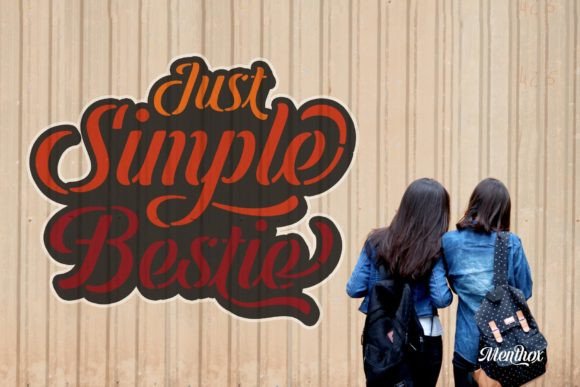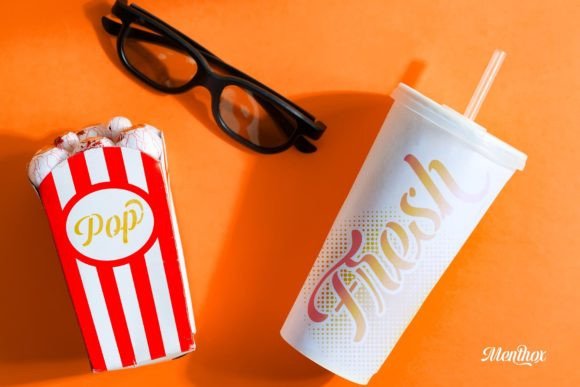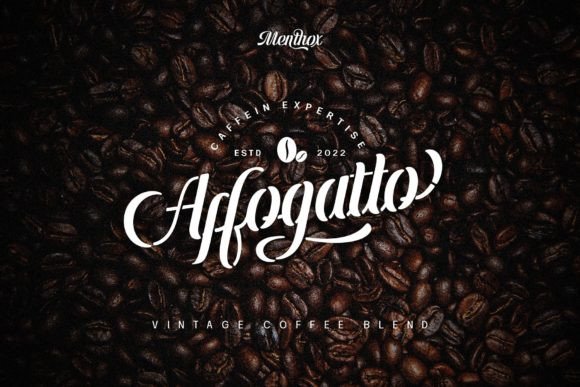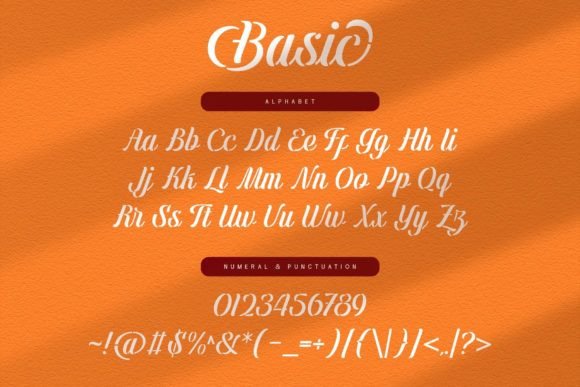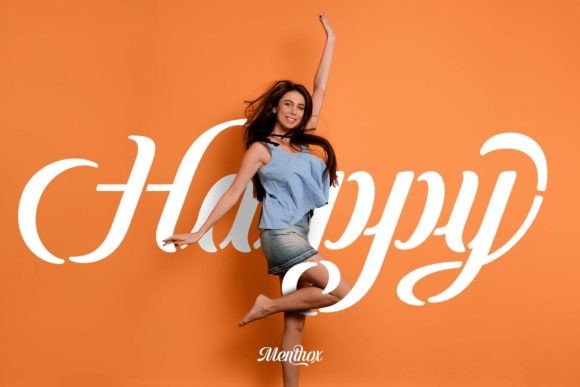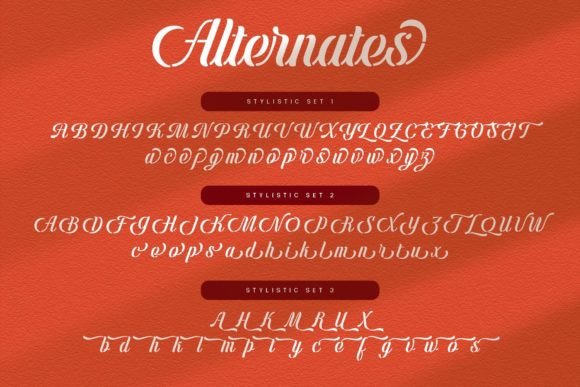
Introduction to Menthox Font
Do you remember the feeling of excitement when you stumble upon the perfect design element for your creative project? For designers, it’s like finding a hidden treasure that elevates your work to the next level. One such treasure is the Menthox Font, a script font that has been making waves in the design community with its unique stencil style.
With its strong characters and decorative stencil design, the Menthox Font is a game-changer for designers who want to add a touch of personality to their work. Whether you’re working on a design project or just want to add some flair to your social media graphics, this font is a valuable resource that can help you stand out from the crowd. Plus, with its high-quality design and free download option, it’s an accessible resource for designers of all levels.
As a design resource, the Menthox Font offers a lot of flexibility, making it easy to use on a transparent background or as a standalone element. Its versatility and ease of use make it a must-have for any designer looking to add a creative touch to their work.
Key Features of Menthox Font
- High-quality design for creative projects, ideal for use in digital art and graphic design.
- Designed with a high resolution (300 DPI), ensuring crisp and clear typography in various print and digital applications.
- Unique, modern aesthetic, perfect for adding a touch of sophistication to creative projects.
Honest Review: Menthox Font
What works well: ✨ The Menthox Font has a unique, modern aesthetic that would be perfect for a variety of design projects. The font is highly customizable and can be easily edited to fit specific design needs. Additionally, the font’s transparent background makes it easy to layer over other design elements.
Overall, I’m impressed with the Menthox Font’s potential and would recommend it to designers working on creative projects that require a modern, unique font. However, it’s essential to weigh the limitations and ensure the font meets your specific design needs.
- Unique, modern aesthetic
- Customizable and editable
The Menthox Font is a high-quality design resource ideal for creative projects. It can be downloaded for free, making it a valuable addition to any design toolkit. With its transparent background, this font is perfect for overlaying text on images or videos.
Use the Menthox Font for creative projects, such as designing logos, brochures, or social media graphics. Experiment with different font sizes, colors, and styles to create visually appealing designs.
The Menthox Font is ideal for use in digital design projects, such as:
– Social media graphics and ads
– Logo design
– Brochure and flyer design
– Website and landing page design